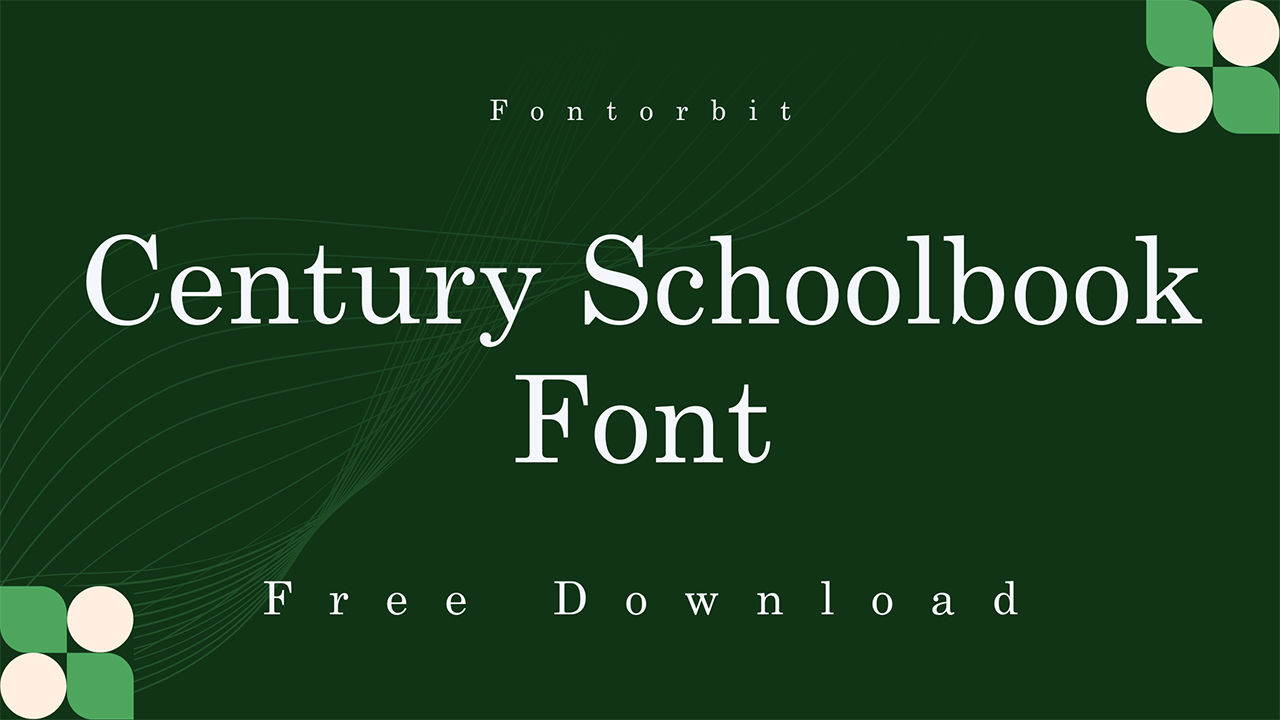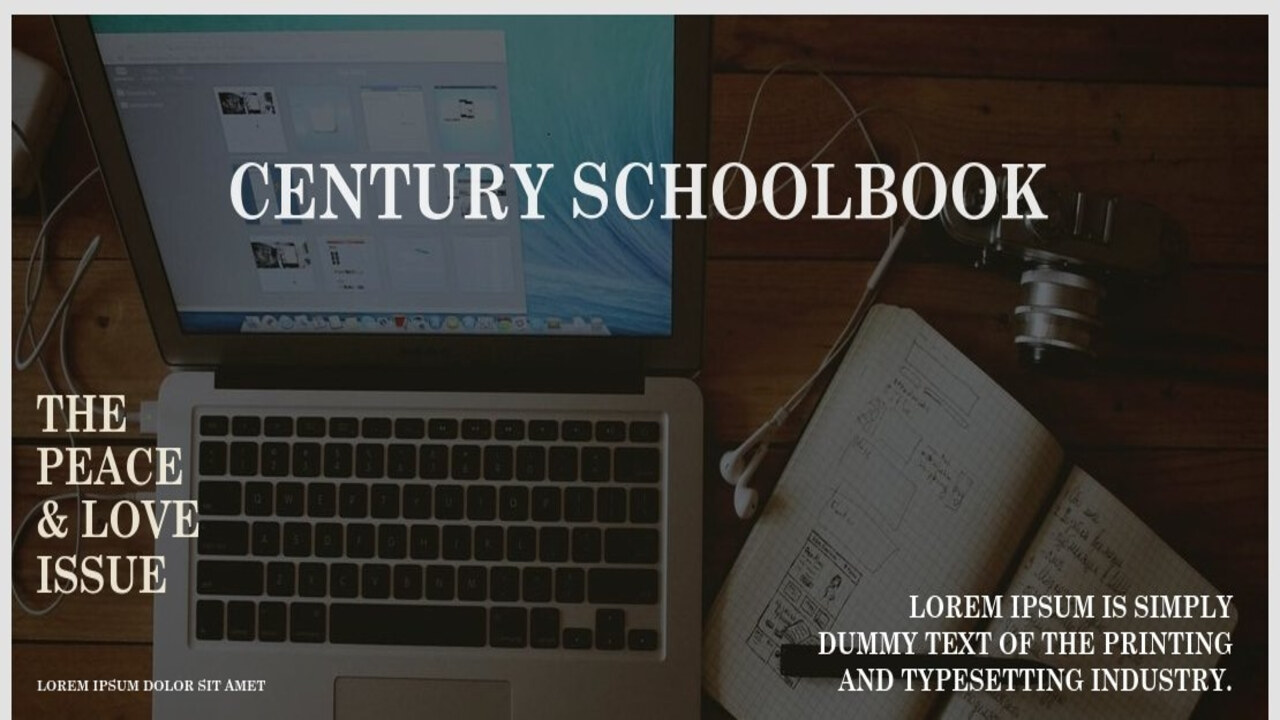
Century Schoolbook font is a modern serif typeface designed by Morris Fuller Benton in 1924. Originally created to be an easy-to-read font for use in textbooks, Century Schoolbook has since become a staple in the world of typography.
Its design is characterized by clear, readable letterforms that evoke a sense of tradition and reliability. Many Americans first learned to read with books set in Century Schoolbook, giving the font a nostalgic and familiar feel.
The Century Schoolbook Font Family
Century Schoolbook is a versatile serif typeface that comes in several styles and weights. Each variant is designed to enhance readability while maintaining a classic appearance, making it a popular choice for educational and professional use. The available styles include:
- Century Schoolbook Regular
- Century Schoolbook Bold
- Century Schoolbook Italic
- Century Schoolbook Bold Italic
- Century Schoolbook Condensed
- Century Schoolbook Monospaced
Century Schoolbook is an ideal choice for a wide range of applications, particularly in contexts where clarity and a formal appearance are important. Some of the most common uses for this font include:
- Educational Materials
- Editorial Design
- Corporate Documents
- Print Media
Century Schoolbook is commonly found in educational publications, where its easy-to-read design is most beneficial. It’s also widely used in corporate branding and official documents, where its formal and trustworthy appearance is a significant asset. The font’s versatility across different media formats ensures its continued popularity among designers and typographers.
Century Schoolbook Font has established itself as a classic in the world of typography. Its design prioritizes readability and clarity, making it a reliable choice for educational materials, corporate documents, and various other print and digital media. The font’s enduring appeal lies in its blend of tradition and functionality, ensuring it remains a favorite among designers who value both form and function.
1.How To Use Century Schoolbook Font In Design?
The Century Schoolbook Font works best for large bodies of text, such as those found in textbooks, articles, and reports. Its clear design makes it suitable for both print and digital applications, ensuring readability in various contexts.
2.How To Customize Century Schoolbook Font For A Specific Project?
You can customize Century Schoolbook Font by adjusting letter spacing, line height, and font size within your design software. This ensures that the font remains legible and visually appealing in different layouts and formats.
3.What Are The Recommended Font Sizes For Century Schoolbook Font In Different Mediums?
For print, use Century Schoolbook Font at sizes 10pt to 12pt for body text, and 18pt to 24pt for headlines. Designers recommend using 16px to 20px for body text and 24px to 32px for headers on screens to ensure readability.
4.What Kind Of Font Is Century Schoolbook Font?
Century Schoolbook Font is a modern serif typeface, known for its readability, classic design, and versatility. People widely use it in educational materials, corporate branding, and both print and digital media.
5.What Font Is Closest To Century Schoolbook?
Fonts closest to Century Schoolbook include Georgia and Garamond. Both share similar classic serif features with a traditional, readable style, though Georgia has slightly thicker strokes, making it more suited for digital screens.